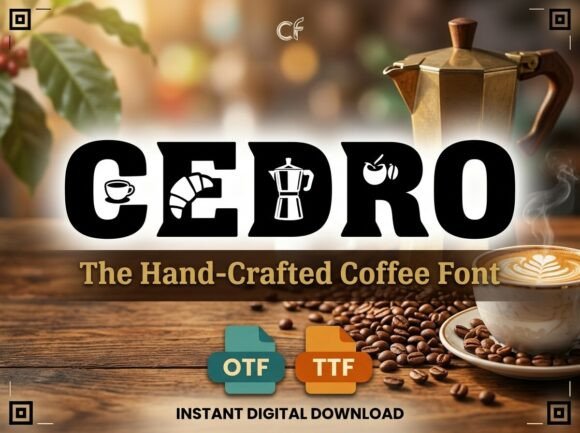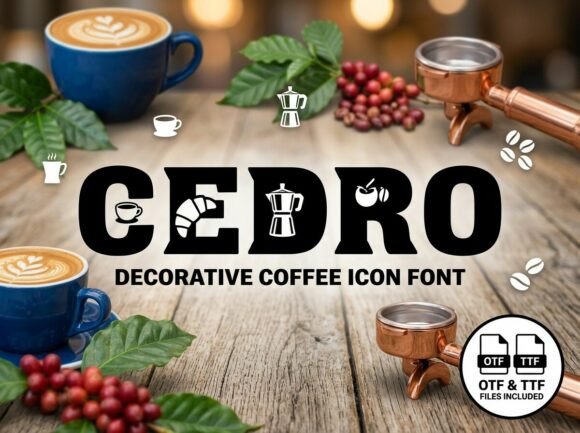
Wake Up Your Brand with Cedro Font: The Ultimate Display Typeface for Coffee Culture
In the world of typography, a font can make or break a brand’s identity. For businesses in the coffee industry, a font that captures the essence of their culture and products is crucial. Introducing Cedro, a robust display typeface that embodies the “roasted-and-rich” soul of coffee culture. This stunning font is designed to elevate your brand’s visual identity, making it the perfect choice for independent coffee shops, artisanal roasteries, breakfast cafes, and social media headers.
The Inspiration Behind Cedro
Cedro is more than just a font – it’s an experience. Inspired by the vibrant world of coffee culture, Cedro’s massive, heavy slab-serif letterforms are meticulously designed to evoke the warmth and comfort of a cozy coffee shop. The font features integrated coffee culture icons, including steaming mugs, croissants, coffee pots, latte art hearts, and espresso beans. These thoughtful design elements add a touch of personality to your brand’s visual identity, setting it apart from the competition.
Design Features of Cedro Font
Cedro’s design features are what make it truly unique. The font boasts:
- Massive, heavy slab-serif letterforms for a bold presence
- Integrated coffee culture icons, including steaming mugs, croissants, coffee pots, latte art hearts, and espresso beans
- Rhythmic cafe aesthetic that evokes the warmth and comfort of a cozy coffee shop
- Perfect for use in titles, headers, and signage
Perfect for Coffee Shop Branding and More
Cedro is the premier choice for businesses in the coffee industry looking to elevate their brand’s visual identity. Its bold presence and rhythmic cafe aesthetic make it perfect for:
- Independent coffee shop branding
- Artisanal roastery logos
- Breakfast cafe menu titles
- High-impact “barista-life” social media headers
Why Choose Cedro Font?
With Cedro, you can:
- Create a bold and eye-catching brand identity
- Stand out in a crowded market
- Evokes the warmth and comfort of a cozy coffee shop
- Perfect for use in a variety of design materials, from business cards to billboards
Tips for Using Cedro Font Effectively
To get the most out of Cedro, here are some tips for using it effectively:
- Use Cedro as a title font to grab attention
- Pair Cedro with a clean sans-serif font for body text
- Use Cedro consistently across all design materials to create a cohesive brand identity
Cedro font is a game-changer for businesses in the coffee industry looking to elevate their brand’s visual identity. With its bold presence, rhythmic cafe aesthetic, and integrated coffee culture icons, Cedro is the perfect choice for independent coffee shops, artisanal roasteries, breakfast cafes, and social media headers. Whether you’re a designer or a craftsperson, Cedro is sure to inspire and help you create a brand identity that stands out from the crowd.